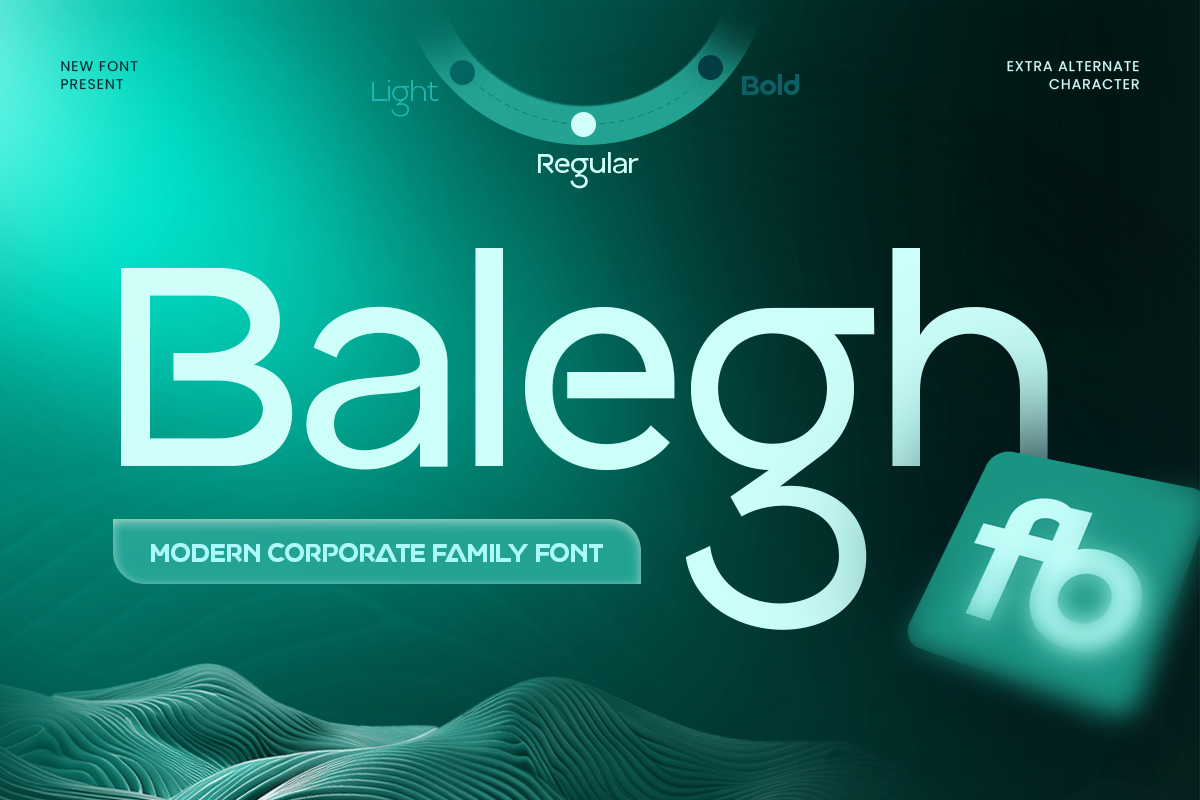
Balegh
-Modern Corporate Font Family
BALEGH – Modern Corporate Font Family
BALEGH is a modern corporate font family created for professional communication, contemporary branding, and refined visual identities. With clean letterforms, balanced proportions, and a confident business-oriented character, this corporate font family delivers a polished aesthetic that feels modern, reliable, and highly versatile.
Designed for corporate logos, brand identity systems, company profiles, packaging, presentations, editorial layouts, posters, headlines, signage, and advertising, BALEGH adapts effortlessly across a wide range of professional applications. Its clean structure also makes it suitable for websites, UI design, social media, digital campaigns, and modern print projects.
As a versatile modern corporate typeface, BALEGH helps designers establish consistent typography across multiple brand touchpoints. It is an excellent choice for startups, agencies, technology companies, consulting firms, financial brands, architecture studios, and businesses seeking a contemporary yet timeless visual identity.
BALEGH – Modern Corporate Font Family Features
• Modern corporate letterforms with a clean professional style
• Versatile font family for consistent visual identities
• Ideal for corporate logos, branding, presentations, and editorial design
• Balanced typography for headlines and professional layouts
• Great for websites, UI design, social media, and print
• Suitable for startups, agencies, and established corporate brands
• OpenType features for creative typographic flexibility